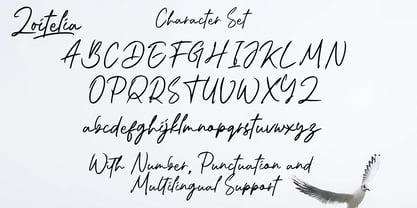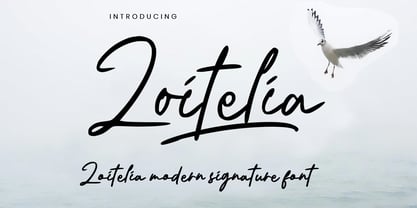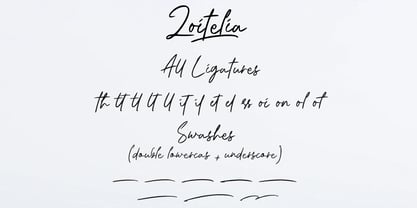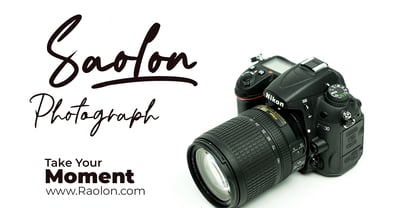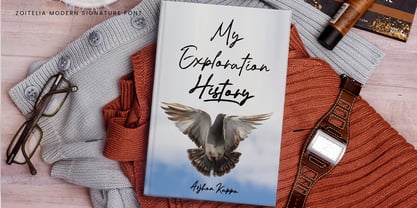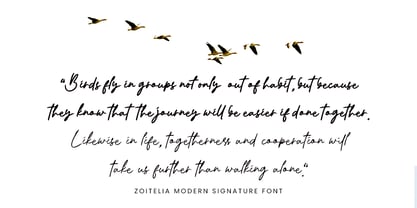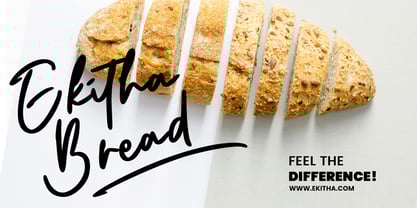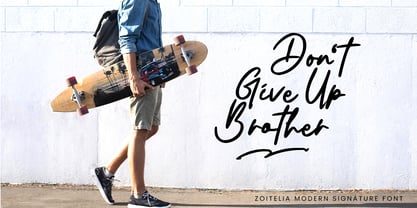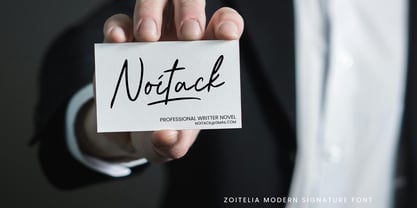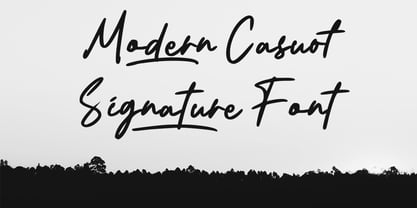
Zoitelia
by Mega Type
The Zoitelia Font Family was designed by M Akmal and published by Mega Type. Zoitelia contains 2 styles and family package options. More about this family
Introducing Zoitelia Modern Signature Font.
Zoitelia is a casual signature font specially created by expert hands with an aesthetic touch, with soft and unique strokes, making this font look so beautiful and natural. This font is perfect for products that use a natural, beautiful, charming handwriting impression and make any design stand out! Zoitelia comes with 2 weights, regular and bold.
Zoitelia is perfect for branding projects, logos, wedding designs, social media posts, advertisements, product packaging, product designs, labels, photography, watermarks, invitations, stationery, and any project that requires a handwritten taste.